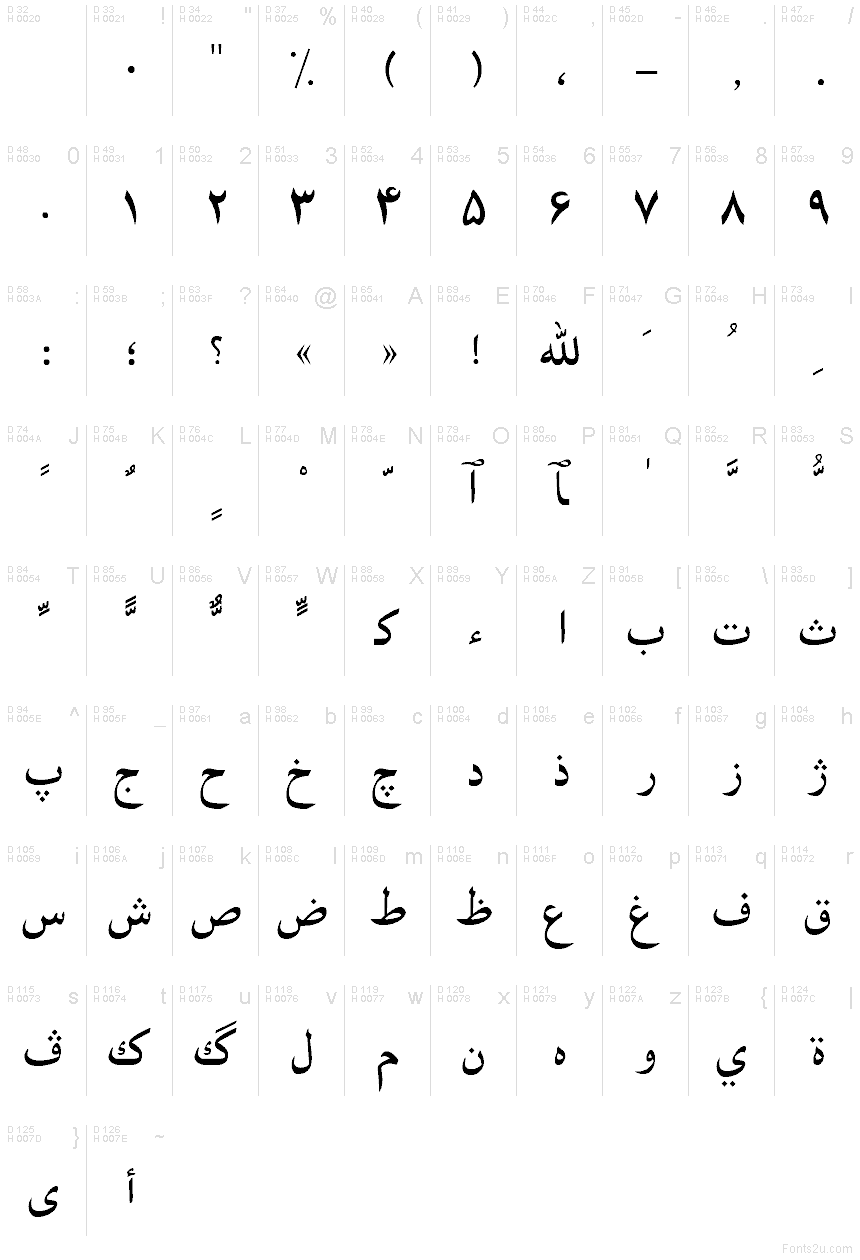
TLFarsi font, designed by Payne Loving Trust, brings script style fluidity to modern fonts. Presenting streamlined shapes with minimalistic elegance, the collection offers a harmonious look that flows in visual compositions. The Arabic/Farsi appearance can adorn meaningful projects to instantly help them stand out.